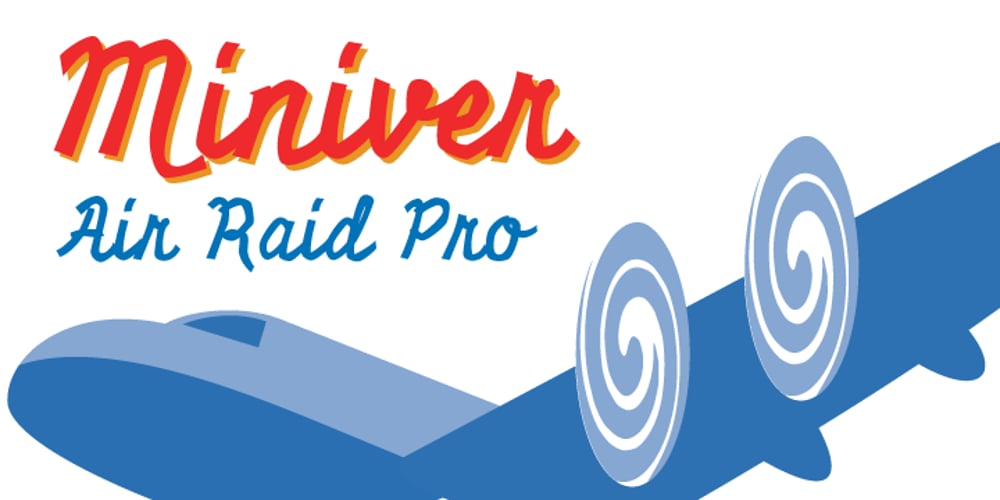
Miniver Air Raid Pro Font Family was designed by Dathan Boardman and published by Open Window. Miniver Air Raid Pro contains 1 styles and family package options. Miniver Air Raid Pro is a close relative of Miniver which was inspired by the titling from the classic movie Miniver. This font packs significantly more punch then its cousin. Give your designs a vintage blast with Miniver Air Raid Pro.